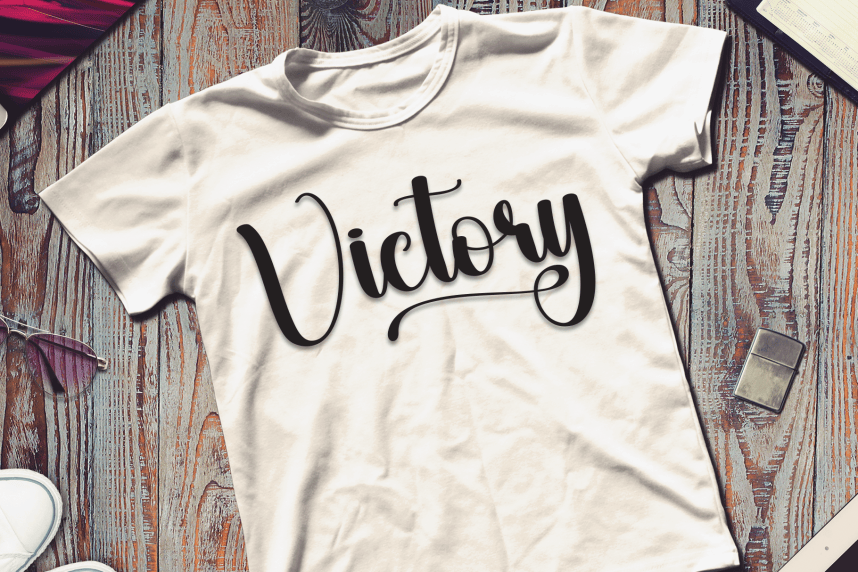
Skinny – Elegant Handwritten Font, special creative products for you, our products will give you an extraordinary experience. the latest style letters are perfect for wall displays, wedding invitations, social media post logos, advertisements, product packaging, product designs, labels, photography, watermarks, invitations, stationery, and any project that requires taste handwriting.